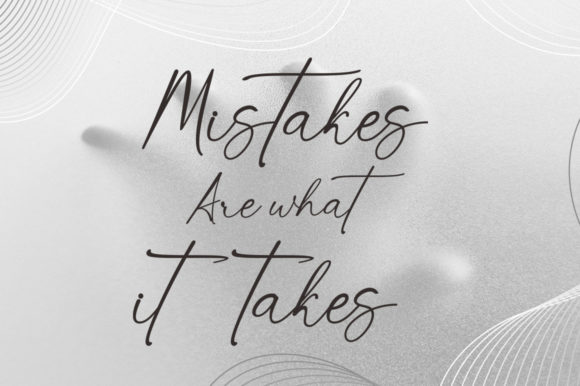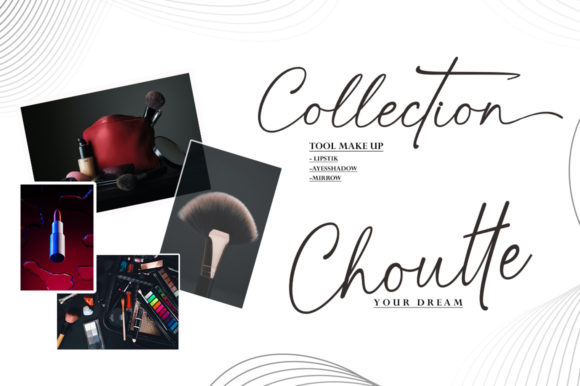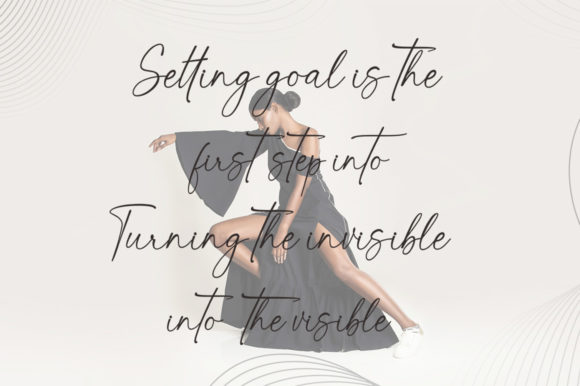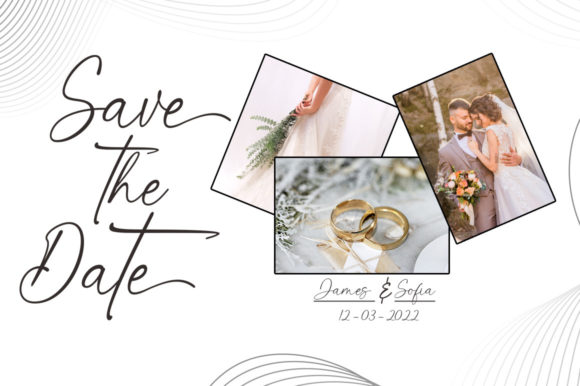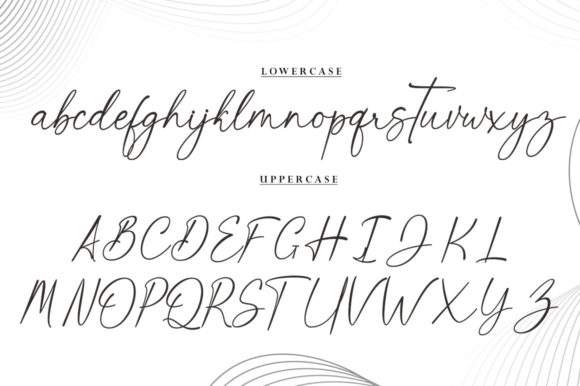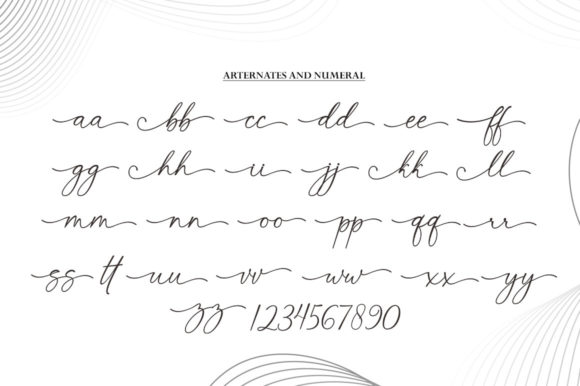
Elevate Your Designs with the Elegant Blackline Font
Are you looking for a font that adds a touch of sophistication and refinement to your designs? Look no further than the Blackline Font, a lovely and delicate script font that exudes elegance and class. In this article, we’ll explore the features and benefits of Blackline, and why it’s a must-have for designers and crafters seeking a beautiful and refreshing look.
The Beauty of Blackline Font
Blackline is a carefully crafted font that boasts a unique and captivating aesthetic. Its delicate script style is perfect for adding a touch of whimsy and romance to your designs, making it ideal for a wide range of projects, from wedding invitations and stationery to branding and advertising materials. With Blackline, you can create stunning visual content that stands out from the crowd and leaves a lasting impression.
One of the standout features of Blackline Font is its PUA (Private Use Area) encoding. This means that you can easily access all of the amazing glyphs and ligatures that make this font so special. With PUA encoding, you can unlock the full potential of Blackline and take your designs to the next level. No more tedious searching for the perfect character or symbol – with Blackline, it’s all at your fingertips.
Blackline Font is a versatile and user-friendly font that’s perfect for designers and crafters of all levels. Whether you’re a seasoned professional or just starting out, Blackline is easy to use and integrate into your workflow. Its clean and elegant design makes it a great choice for a wide range of projects, from digital designs to print materials. Plus, with its PUA encoding, you can easily access all of the font’s features and glyphs, making it a breeze to create stunning visual content.
What You Can Create with Blackline Font
The possibilities are endless with Blackline Font! Here are just a few ideas to get you started:
- Wedding invitations and stationery: Add a touch of elegance and romance to your wedding designs with Blackline’s delicate script style.
- Branding and advertising: Use Blackline to create eye-catching logos, business cards, and advertising materials that stand out from the crowd.
- Digital designs: Add a touch of sophistication to your digital designs, including social media graphics, blog posts, and email newsletters.
- Print materials: Use Blackline to create stunning print materials, including brochures, flyers, and posters.
Tips for Using Blackline Font
Here are a few tips for getting the most out of Blackline Font:
- Experiment with different sizes and colors: Blackline looks great in a variety of sizes and colors, so don’t be afraid to experiment and find the perfect combination for your design.
- Pair it with other fonts: Blackline pairs beautifully with other fonts, so try combining it with a bold sans-serif font for a striking contrast.
- Use it for headlines and titles: Blackline’s elegant script style makes it perfect for headlines and titles – use it to add a touch of sophistication to your designs.
In conclusion, Blackline Font is a beautiful and elegant script font that’s perfect for designers and crafters seeking a refreshing and sophisticated look. With its PUA encoding and delicate script style, Blackline is a versatile and user-friendly font that’s perfect for a wide range of projects. Whether you’re creating wedding invitations, branding materials, or digital designs, Blackline is sure to elevate your designs and leave a lasting impression.